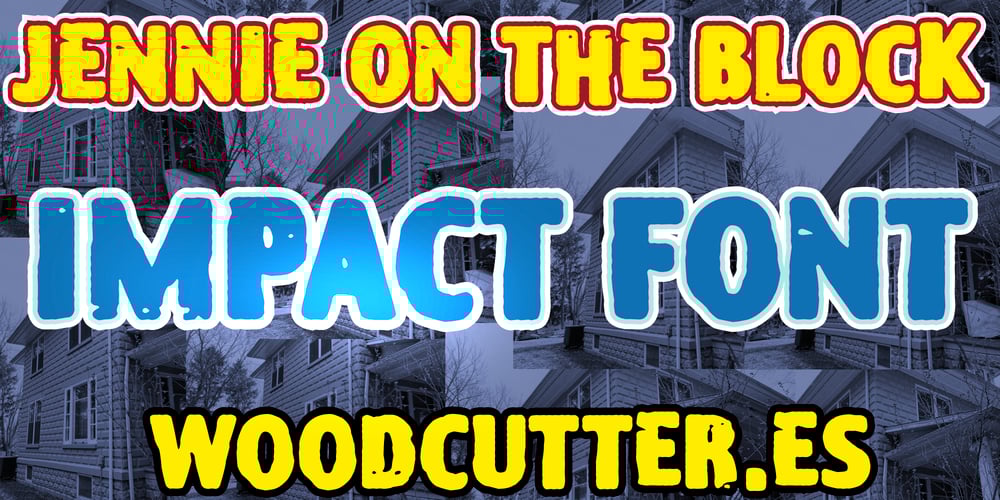
Jennie on the Block Font Family was designed by Jordi Manero and published by Woodcutter. Jennie on the Block contains 1 styles and family package options. “Jennie on the Block” is an uppercase font that stands out for its worn appearance and chaotic arrangement. Each letter looks like it has been battered and dragged, creating a visual effect that is both striking and informal. Ideal for projects seeking an urban and carefree aesthetic, this font conveys a sense of rebellion and uncontrolled energy. Perfect for album covers, posters, or any design needing a bold and characterful typeface.